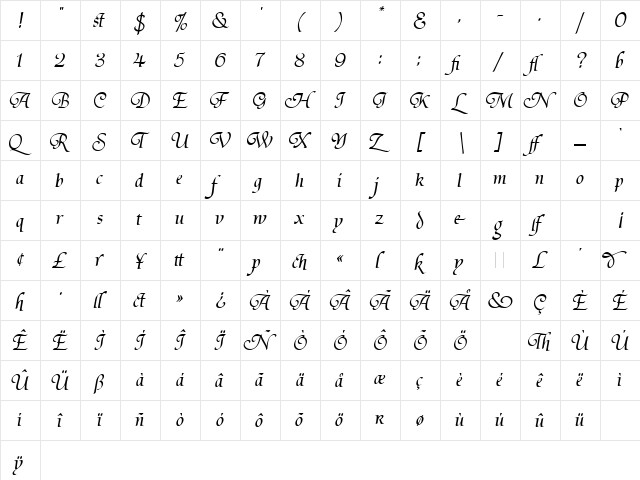
Tiranti Solid LET Plain
Design Context for Tiranti Solid LET Typeface
Tiranti Solid LET is a composed and adaptable typeface that performs quietly and consistently across a wide range of design contexts.